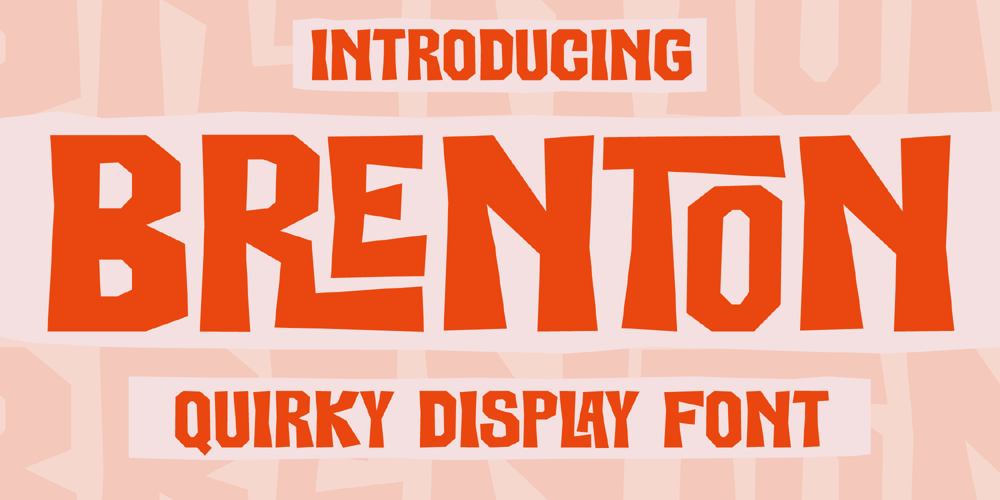
Brenton Font Family was designed by Heru Utama Putra and published by Letterena Studios. Brenton contains 2 styles and family package options. Brenton is a beautiful display font with a unique style and modern look. It is perfect for elegant and luxury logos, book or movie title designs, fashion brands, magazines, clothes, lettering, quotes, and much more. Add it to any of your creative projects, and you will be amazed by the results. *Uppercase